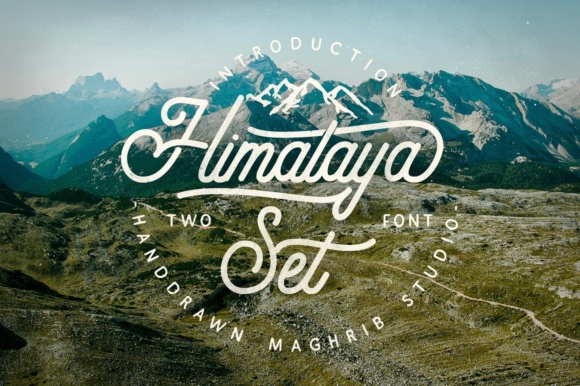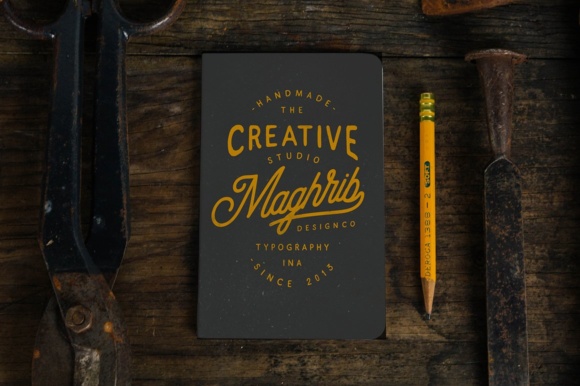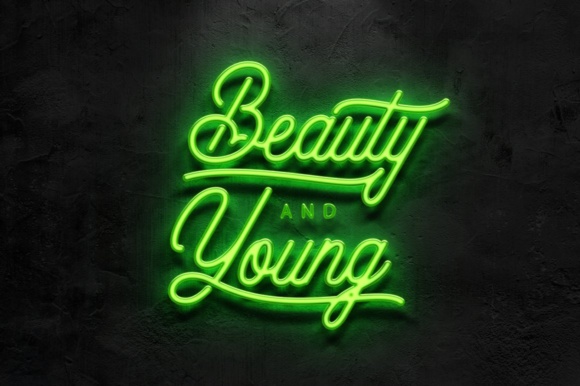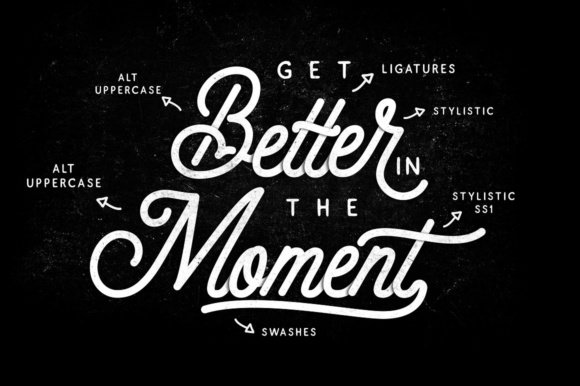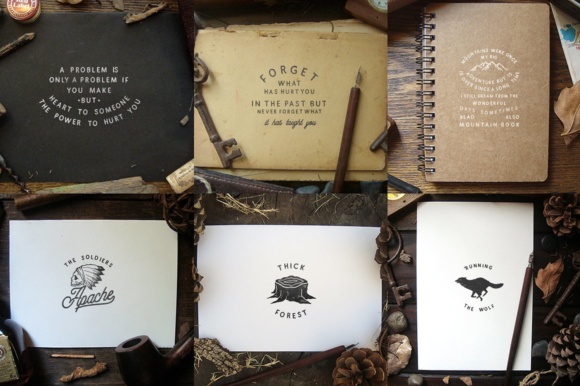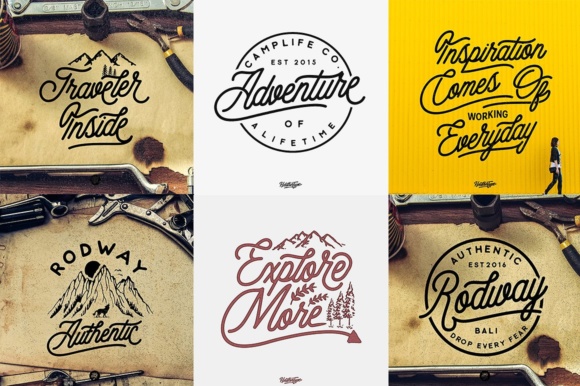
Himalaya Set Font
About Himalaya Set Font
The Himalaya Set is a vintage inspired font that includes one script and one sans serif version. Both versions are hand drawn with a rough edge.